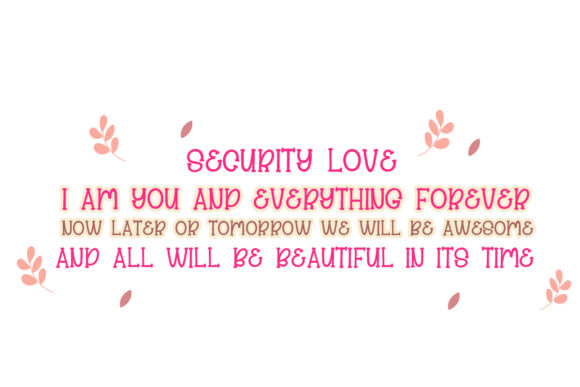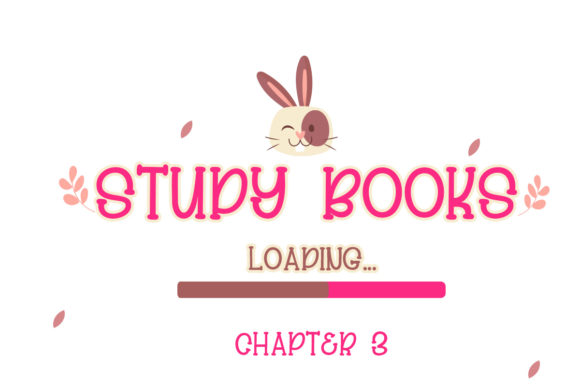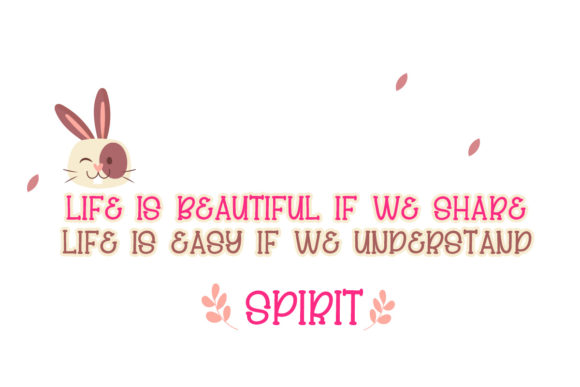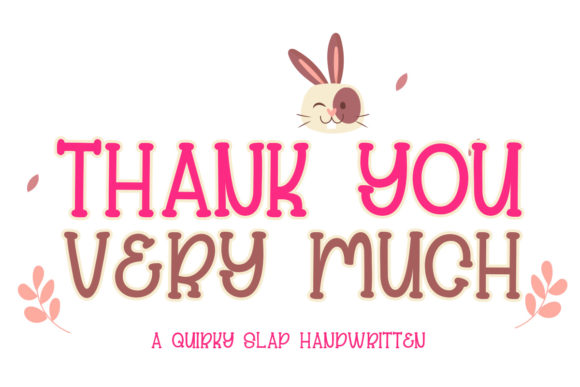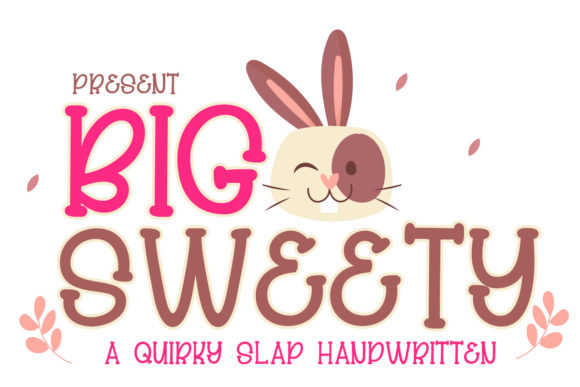
Discover the Charm of Big Sweety Font: A Cute and Friendly Display Font
Are you on the hunt for a font that can add a touch of warmth and personality to your designs? Look no further than Big Sweety Font, a delightful display font that’s perfect for a wide range of creative projects. With its natural and unique style, Big Sweety is sure to capture the hearts of designers and crafters alike.
What Makes Big Sweety Font So Special?
Big Sweety Font is a one-of-a-kind display font that’s designed to bring a sense of friendliness and approachability to your designs. Its cute and playful style makes it incredibly versatile, allowing you to use it for everything from children’s books and educational materials to branding and advertising campaigns.
One of the standout features of Big Sweety Font is its natural and organic feel. Unlike some fonts that can come across as stiff or formal, Big Sweety has a relaxed and effortless vibe that’s perfect for designs that need to feel approachable and engaging.
The Possibilities Are Endless with Big Sweety Font
The only limit to what you can create with Big Sweety Font is your imagination! This incredibly flexible font can be used for a wide range of design projects, including:
- Branding and logos: Use Big Sweety Font to create a custom logo or brand identity that’s friendly, approachable, and memorable.
- Children’s books and educational materials: Big Sweety Font is perfect for kids’ books, activity sheets, and educational resources that need to be engaging and fun.
- Advertising and marketing: Add a touch of personality to your ads and marketing materials with Big Sweety Font, which is sure to help your brand stand out.
- Party decorations and invitations: Use Big Sweety Font to create custom party decorations, invitations, and other celebratory materials that are sure to delight.
Why Designers and Crafters Love Big Sweety Font
So why do designers and crafters love Big Sweety Font? Here are just a few reasons:
- Unique and eye-catching: Big Sweety Font is a true standout, with a unique style that’s sure to grab attention.
- Easy to read: Despite its playful style, Big Sweety Font is incredibly easy to read, making it perfect for designs that need to communicate a message.
- Versatile: Big Sweety Font can be used for a wide range of design projects, from digital designs to print materials.
Getting Started with Big Sweety Font
- Experiment with different sizes: Big Sweety Font looks great in a range of sizes, from small and delicate to large and bold.
- Play with colors: Big Sweety Font is perfect for designs that need a pop of color, so don’t be afraid to get creative with your color palette.
- Pair it with other fonts: Big Sweety Font pairs perfectly with a range of other fonts, so feel free to experiment with different combinations.